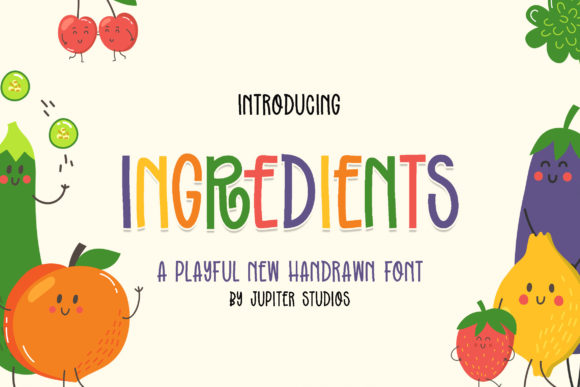
Journey into the whimsical world of Ingredients Font, a charming family of scripts that will add a touch of playfulness and fun to your creative projects. Designed by the talented Jupiter Studio, Ingredients captures the carefree essence of childhood, making it the perfect choice for children's books, invitations, greeting cards, and more.
With its casual vibe and informal style, Ingredients Font evokes a sense of comfort and familiarity, inviting readers to immerse themselves in the world of your stories. Picture the smiling faces of children as they follow the adventures of their favorite characters, brought to life by the enchanting curves and playful strokes of Ingredients.
Suitable for both digital and print applications, Ingredients Font offers the flexibility you need to bring your creations to life. Its versatile nature allows you to effortlessly add a touch of whimsy to logos, branding materials, social media posts, and even website designs.
Let Ingredients Font be your secret ingredient for creating designs that resonate with your audience. Its ability to evoke emotions and capture imaginations makes it an invaluable tool for storytellers, educators, and anyone looking to add a dash of charm to their work.
Embrace the magic of Ingredients Font and watch as your words dance off the page, transforming your stories into captivating adventures that linger in the hearts and minds of your readers. Indulge in the joy of creativity and let Ingredients Font be your guide on this enchanting journey.